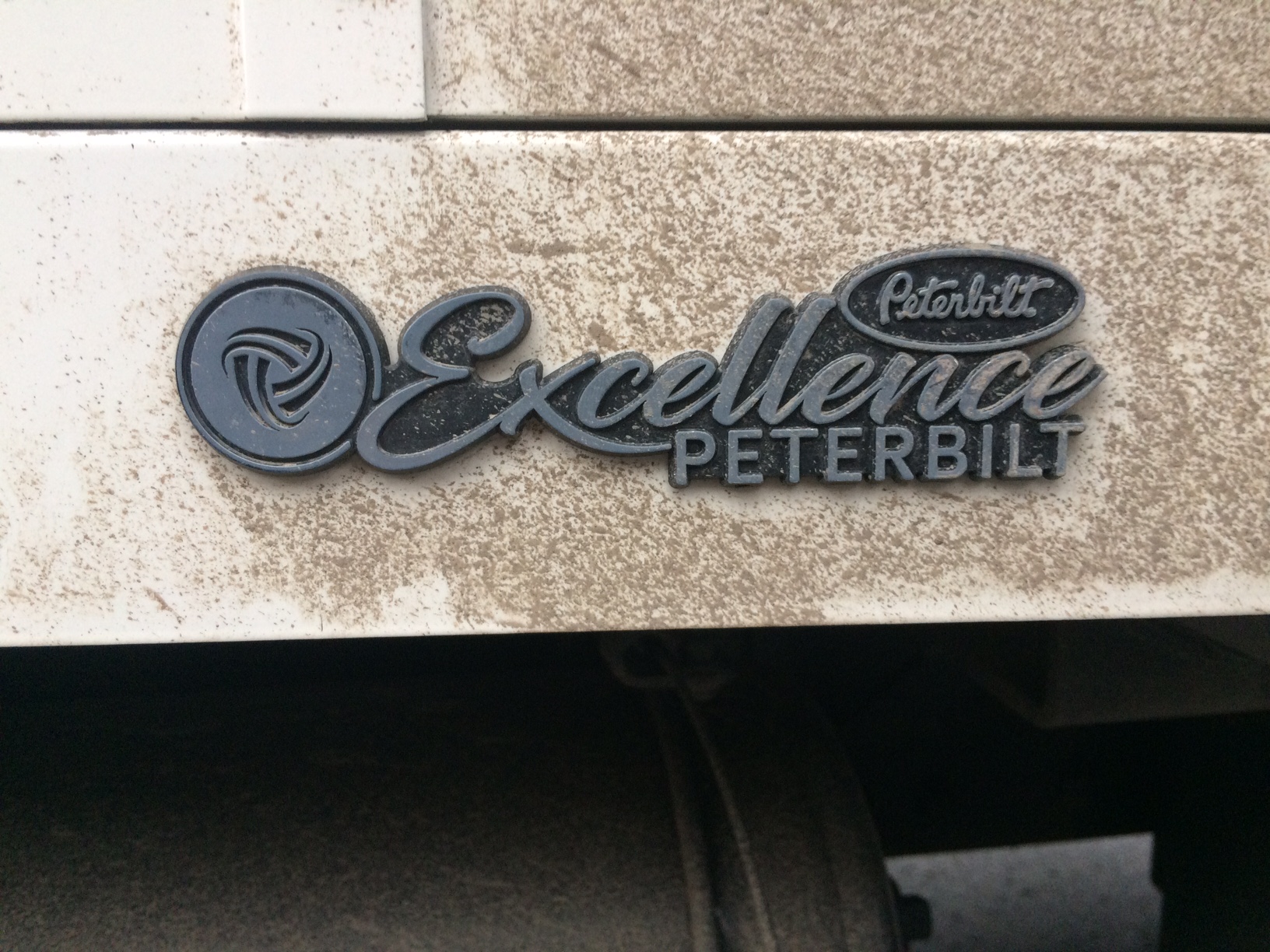
Need help finding this script font
Hi folks, my client request having his name on the door the same as < Excellence > on this dealership's emblem... any idea?
Totally agree: Letterhead fonts are among some of the most beautifully unique and sophisticated fonts that you'll find.
Nice choice. It truly is a beautiful script.